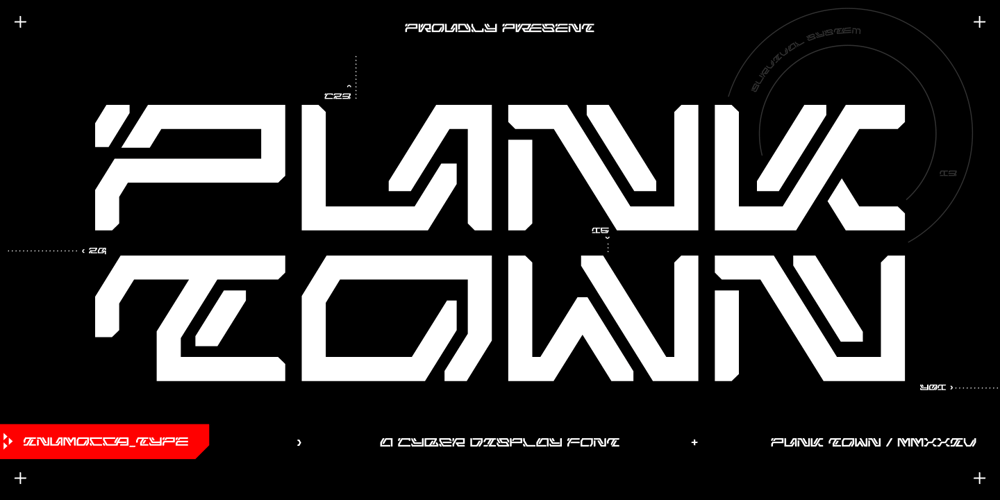
Punk Town Font Family was designed by Inu Mocca and published by Inumocca. Punk Town contains 1 styles and family package options. Punk Town Typeface Inspiration by Futuristic type, Rebel, Modern Technology, Synthwave, Sci-fi Movie Poster, science and Space Theme.its perpect for web and print design project, it was crafted carefully to form a structured and strongletterform that is perpect for covering your Project, You can playing to change ghlyps with Stylistic feature.like Lettering, Website Interface, Magazine, Branding, Poster,Quotes Lettering, Logos, and more your project design.- Unique glyphs- Multilingual Characters- UPPERCASE/lowercase- Numeric- Symbol- Punctuation Character- PUA encoded- Ligature Feature inumoccatype